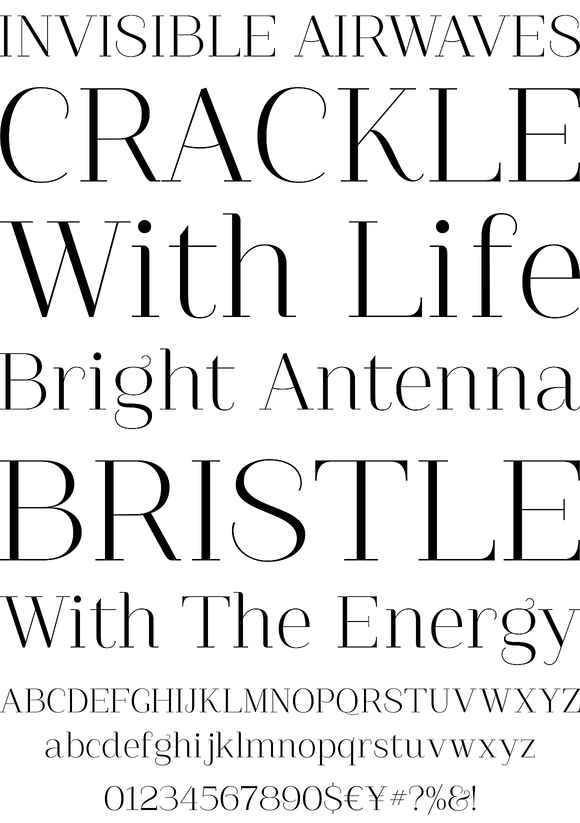
Guadalupe
Guadalupe, from the family of classic Didots. Is a high performance font, with a great set of alternates & swashes. Carefully refined in details, specially suited for fashion magazines, logotypes & luxury contexts. With a range of two different terminal versions; "Regular" a classic roman typeface and "Gota" mucho more expresive for word setting.